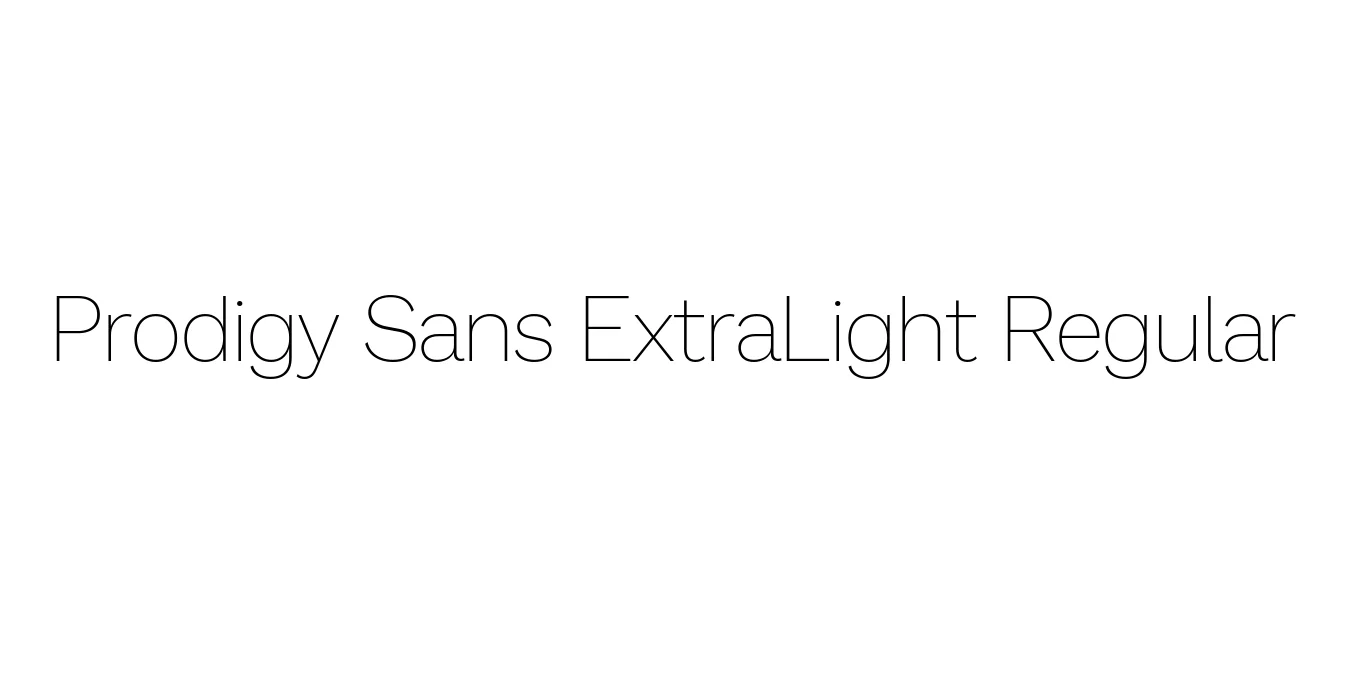
Prodigy Sans ExtraLight Regular
Prodigy Sans ExtraLight Regular is a sophisticated geometric sans-serif typeface designed for modern digital environments. Developed with an emphasis on clarity and minimalist aesthetics, it features open apertures and precise geometric constructions that provide a clean, professional appearance. It is part of the larger Prodigy Sans family, which was crafted to offer designers a versatile tool for contemporary branding and high-end user interface design.
The ExtraLight weight is particularly notable for its airy and elegant presence. Its thin, crisp lines are optimized for high-resolution displays and large-scale editorial use, where its refined proportions can truly shine. This weight excels in creating a sense of luxury and modernity, making it a preferred choice for minimalist layouts where typography serves as a primary visual element without overwhelming the composition.
Prodigy Sans ExtraLight Regular Best Uses
Ideal for minimalist headers and hero sections that require a sophisticated, airy feel.
Perfect for high-end fashion, luxury boutique identities, and modern tech startups.
Excellent for magazine pull quotes, thin titles, and delicate layout accents in digital publishing.
Provides a clean, modern aesthetic for user interfaces focusing on white space and clarity.